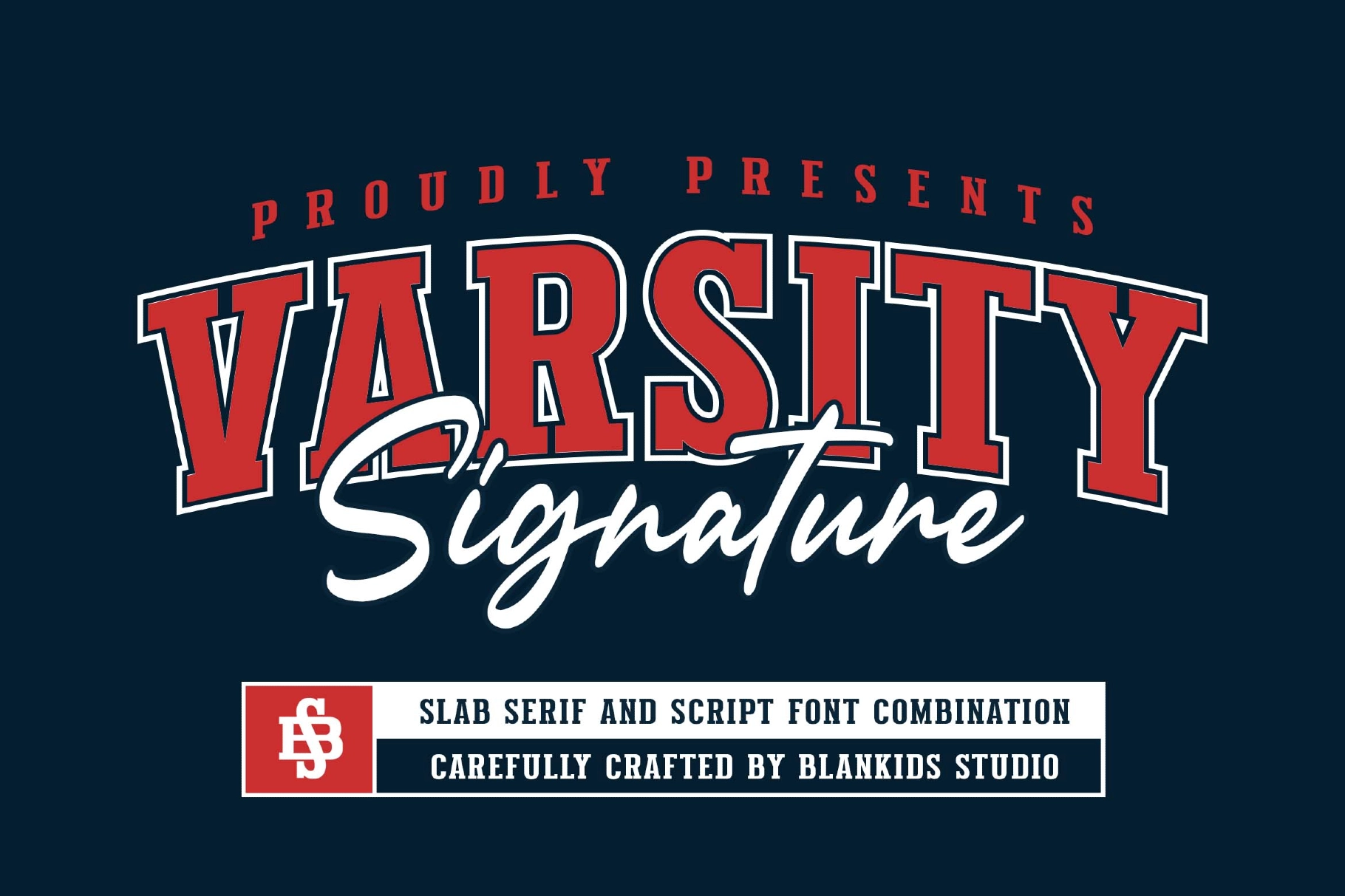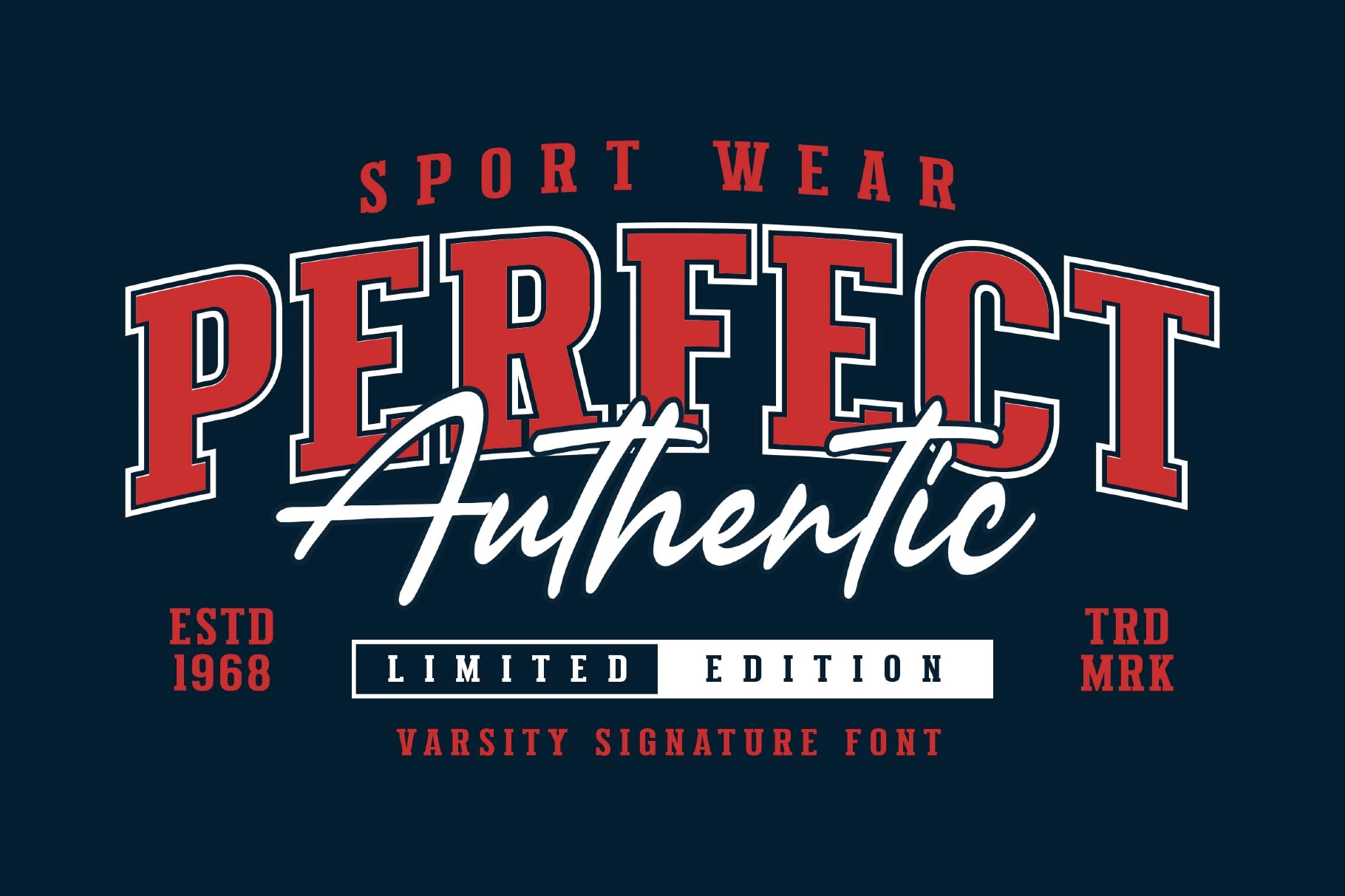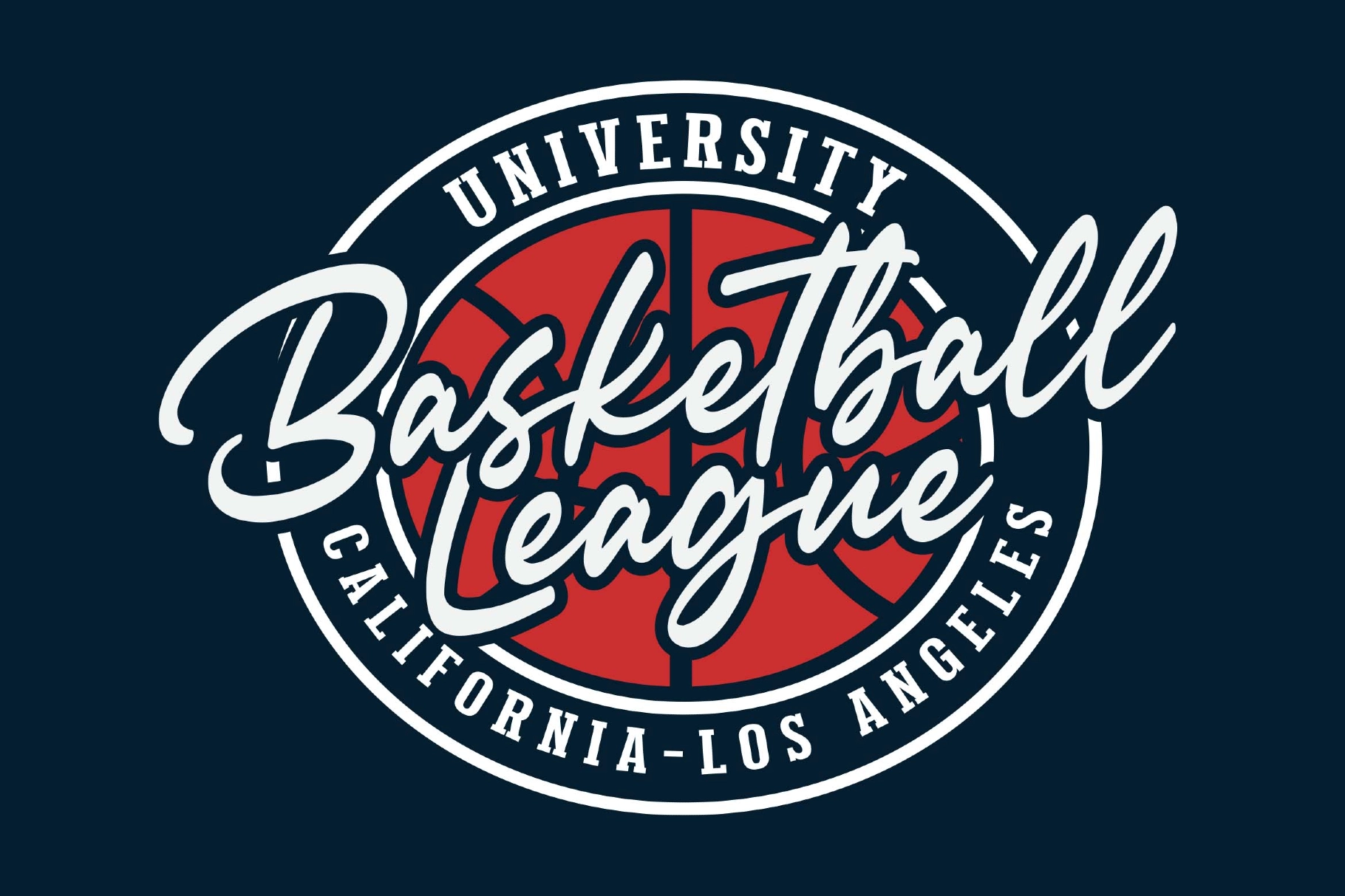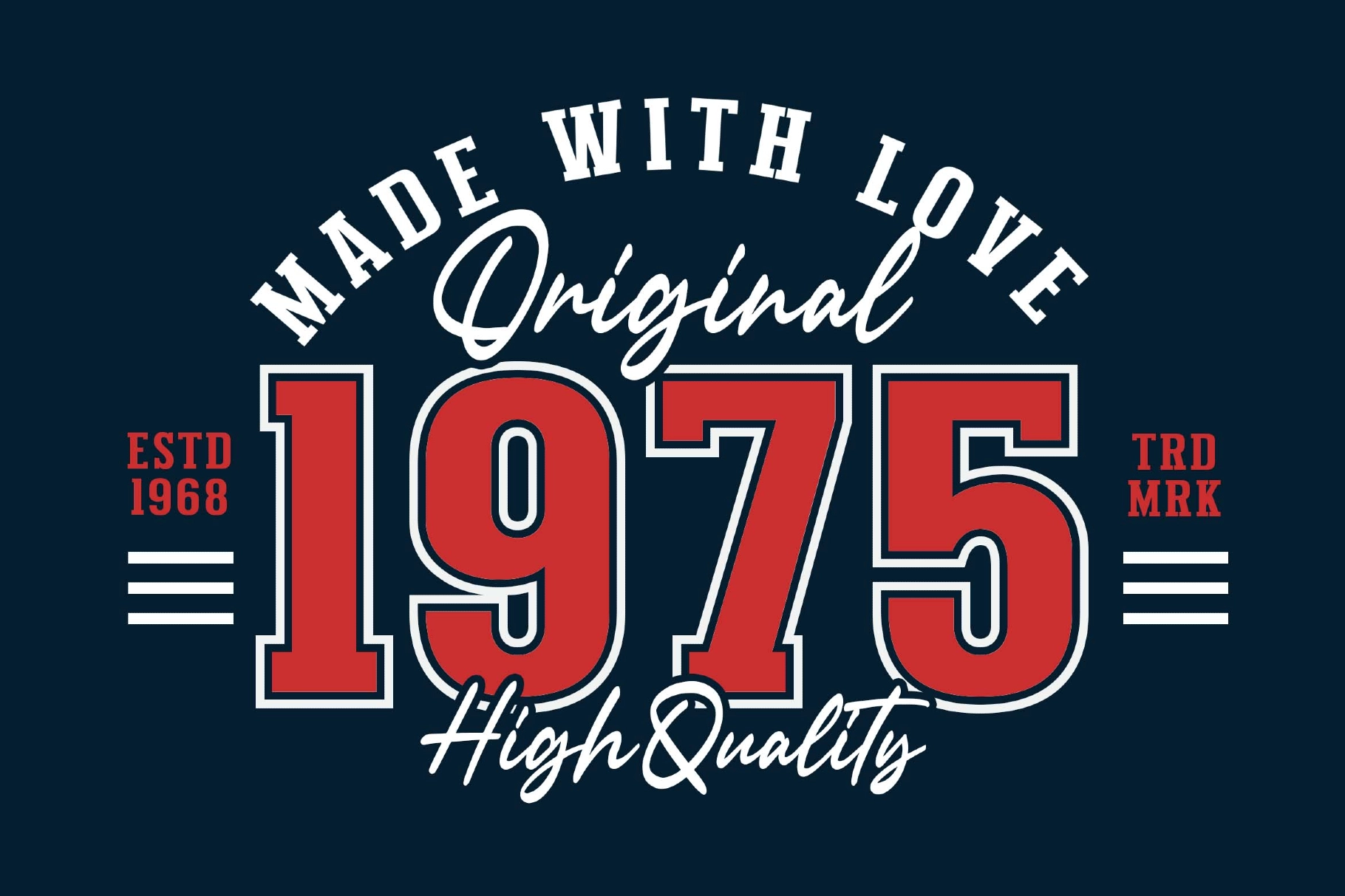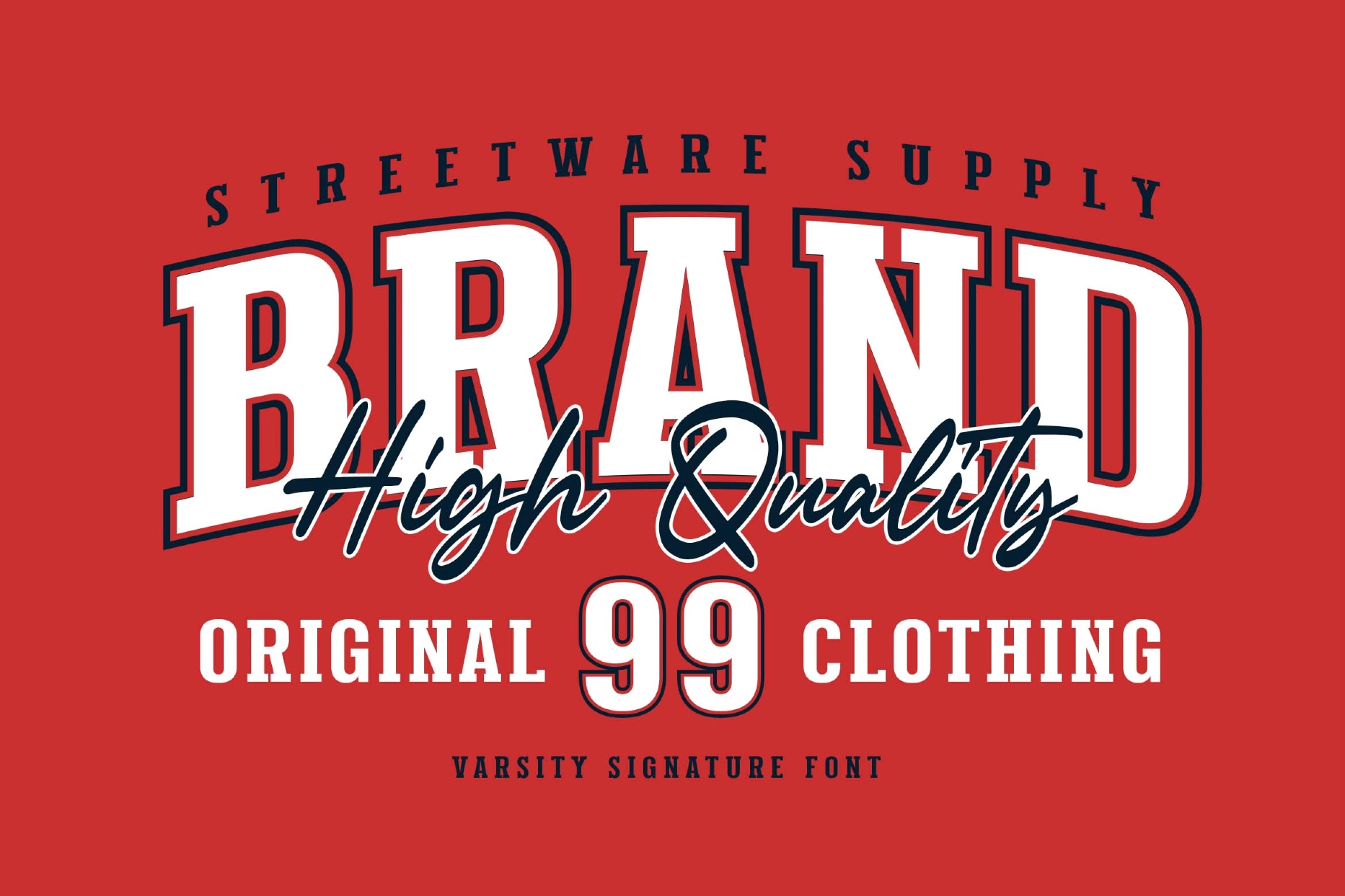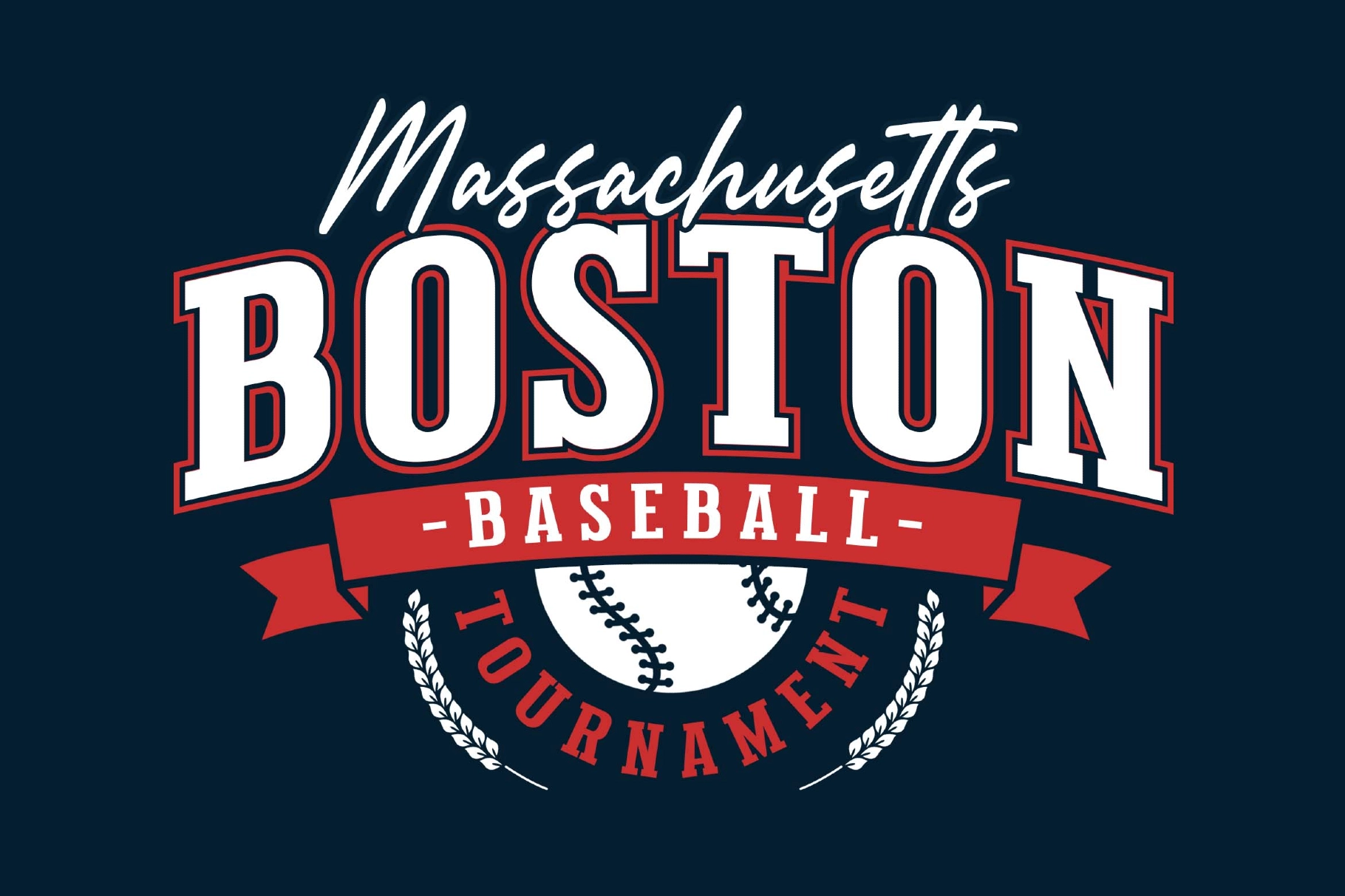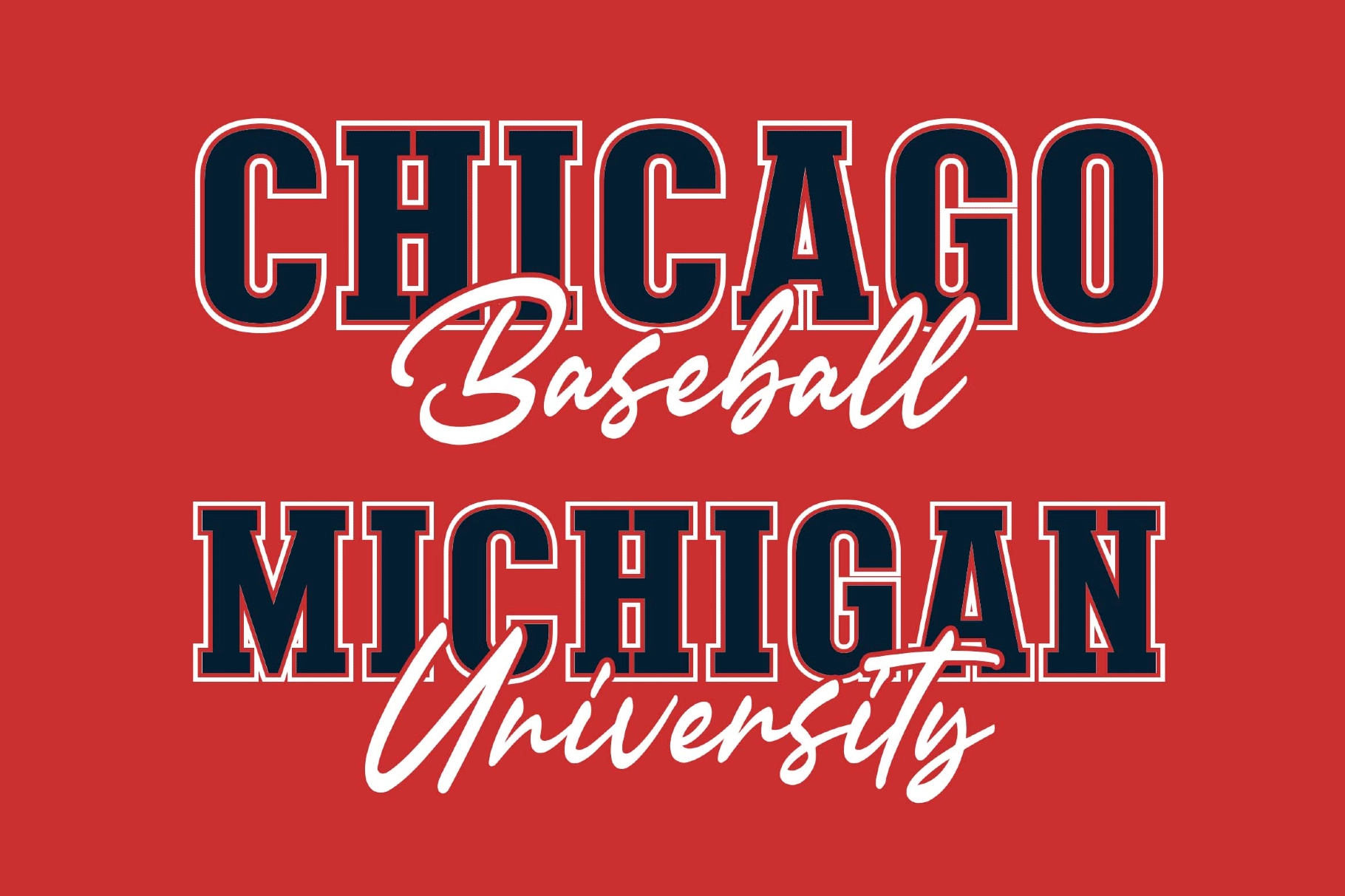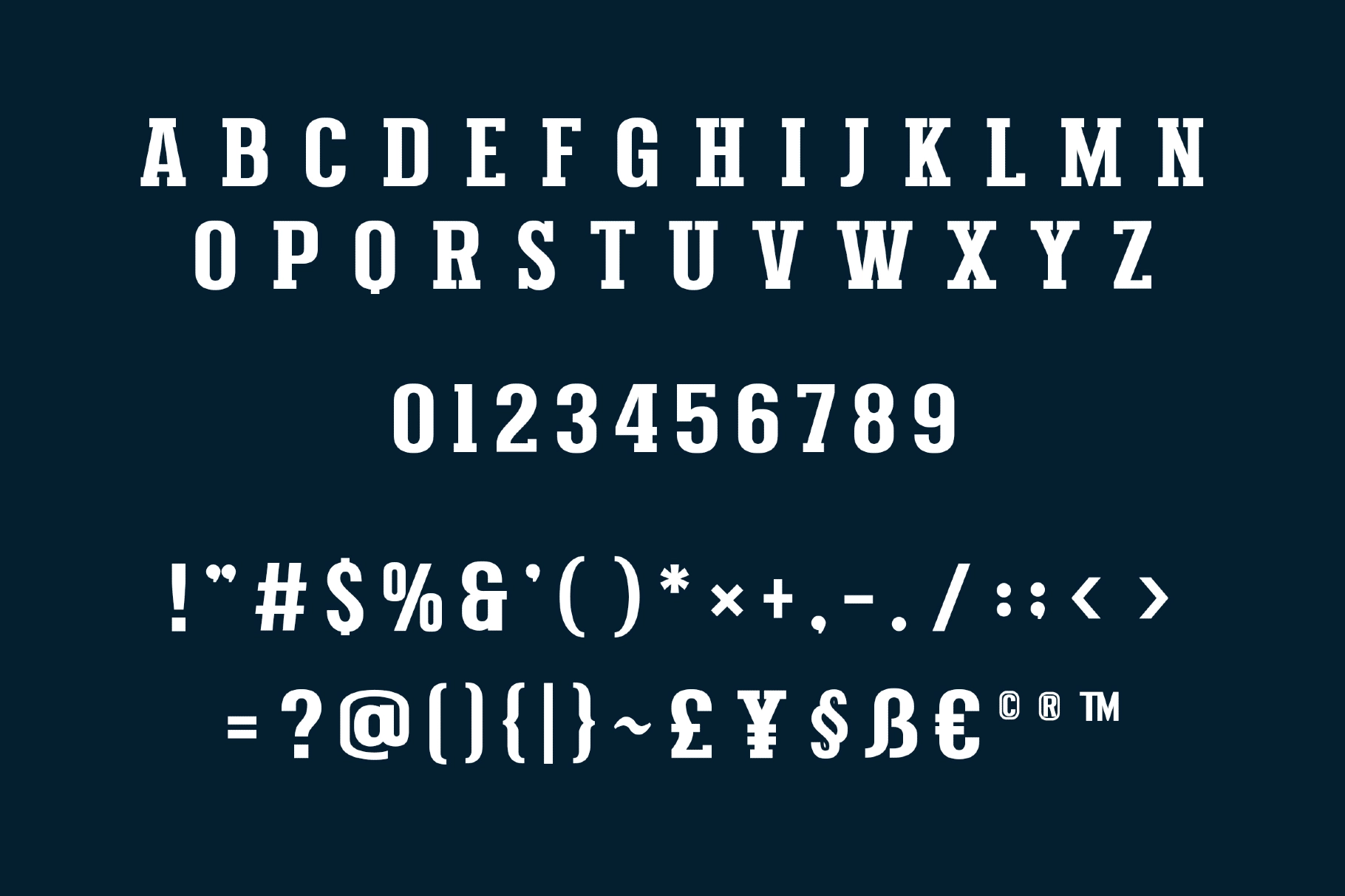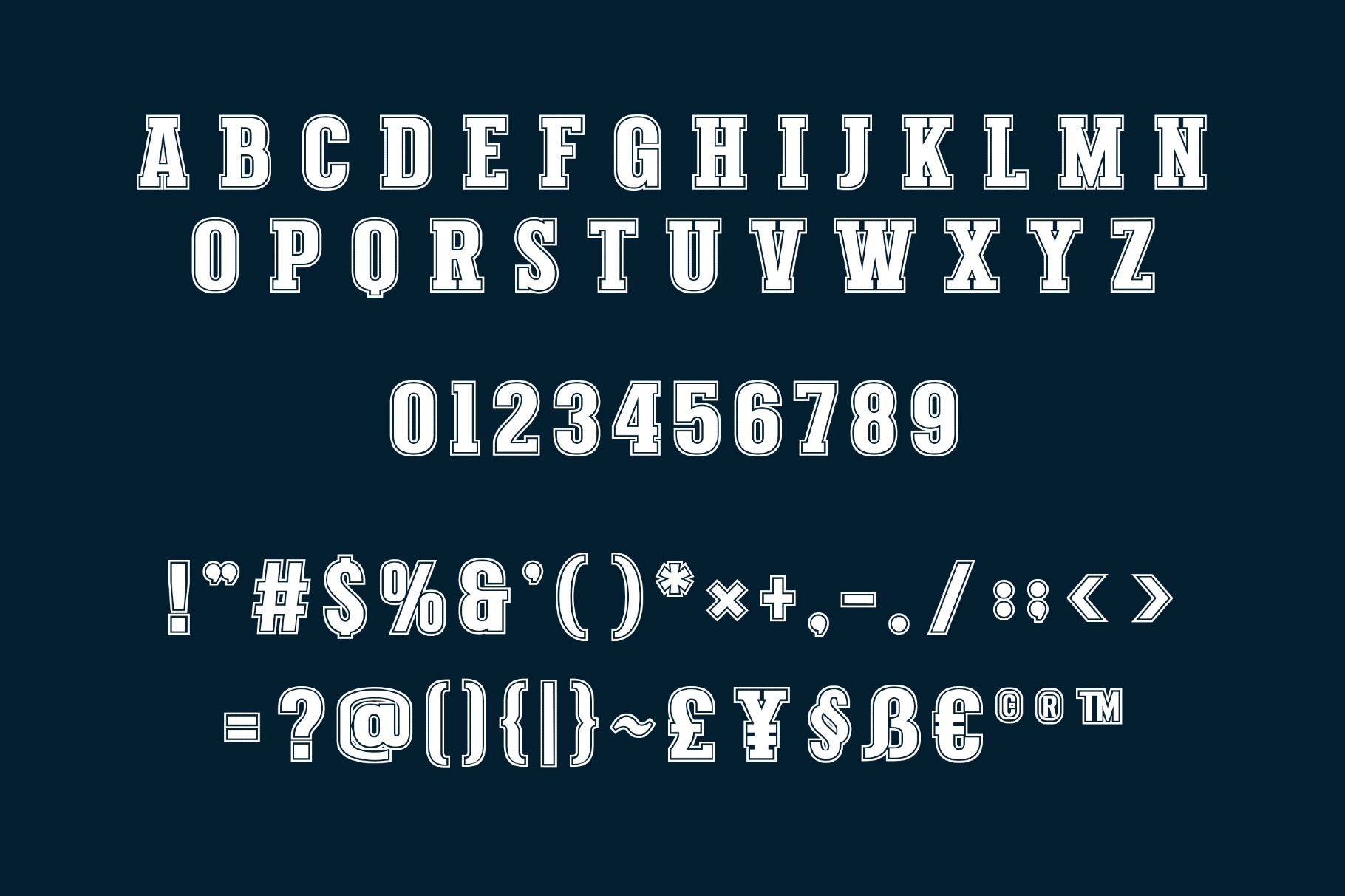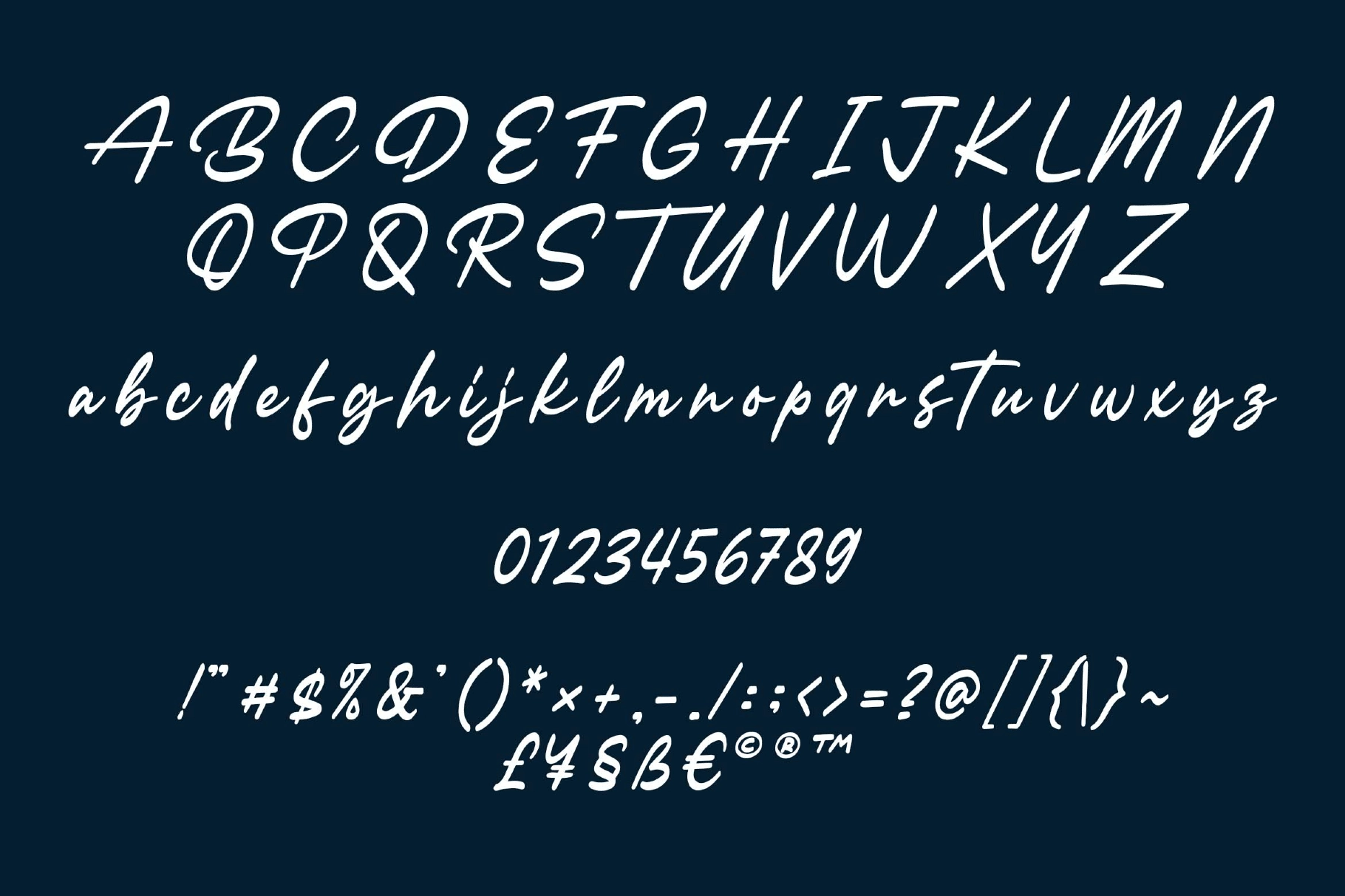
Varsity Signatue - College Font Combination
Varsity Signatue - College Font Combination is a bold college-style font combination designed for professional branding and sporty visual identities. Inspired by classic varsity lettering and athletic typography, this typeface delivers strong character, team spirit, and confident energy in every letter.
Perfect for logotypes, watermarks, posters, merchandise, promotions, packaging, and sports branding, Varsity Signature blends traditional collegiate structure with dynamic modern appeal. With three complementary styles included, this font combination gives you flexibility to create layered, impactful designs with ease.
Whether you're building a school-inspired brand, sports apparel line, or bold headline composition, Varsity Signature brings authentic varsity attitude to your project.
- Sporty uppercase & lowercase letters
- Classic college / varsity style
- Easy to combine layered styles